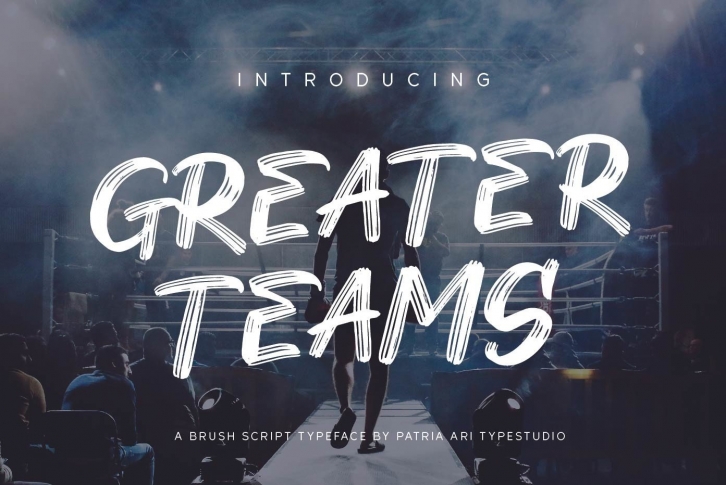
Greater Teams is a brushed display font that looks cool, modern, and urban. Use it in your most creative ideas, and watch how beautifully it makes them come to life!